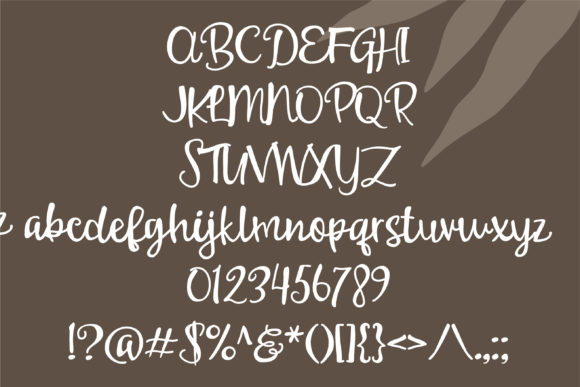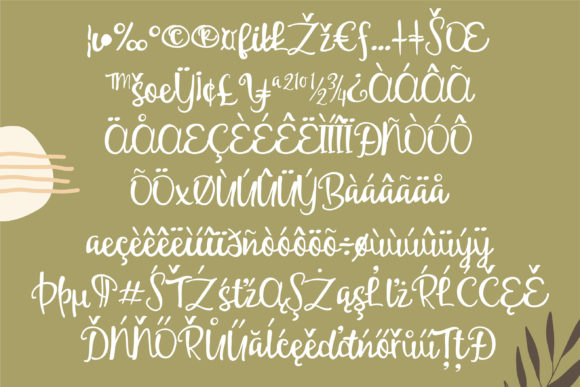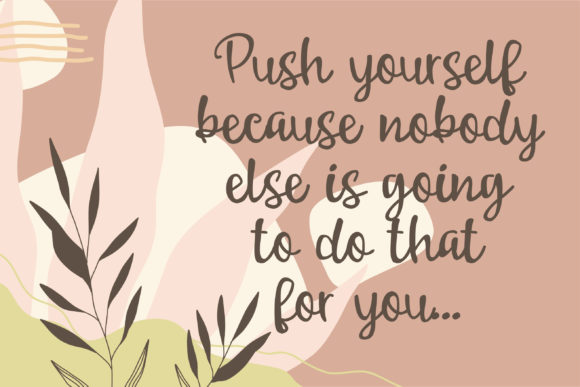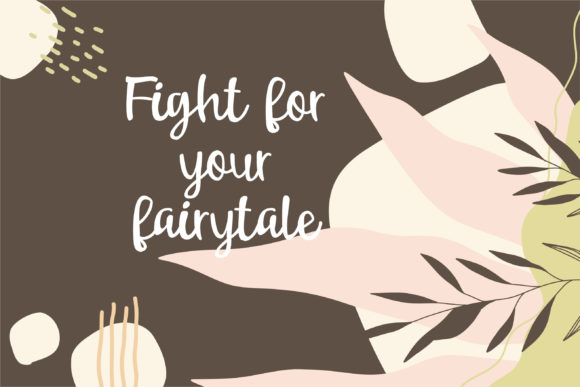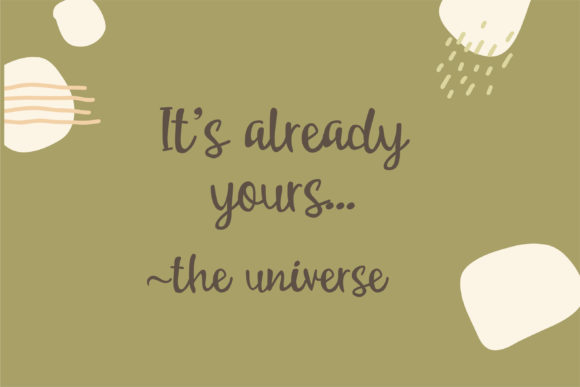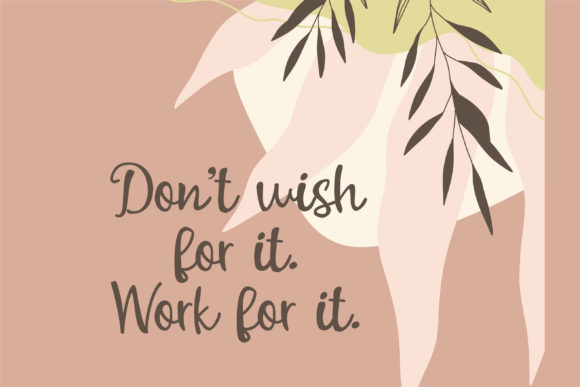
Blitwigs Font
About Blitwigs Font
Blitwigs is a casual and adaptable script font that features lovely and genuine characters. This good-looking script has a bit of bounciness in the baseline and includes a stenciled version for easy cutting machines.